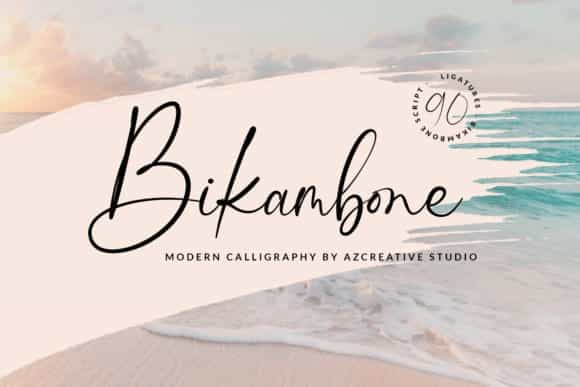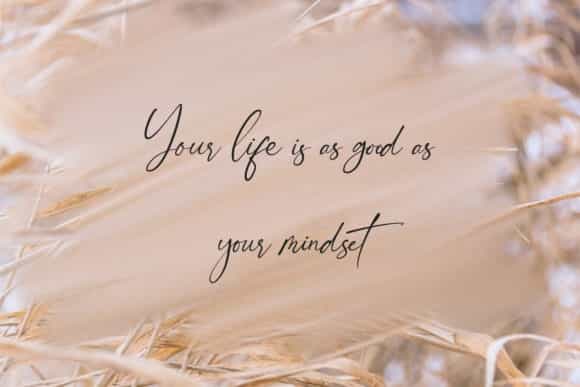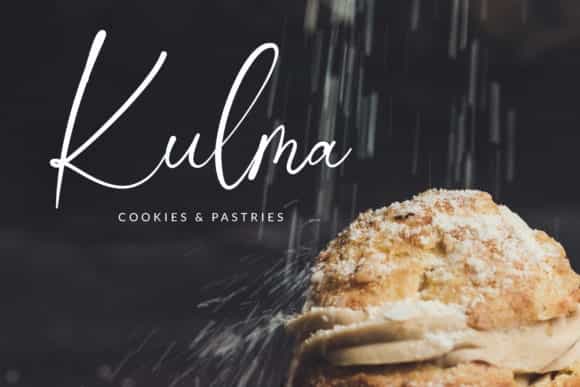
Bikambone is a stylish calligraphy font that has a varying baseline, smooth line, modern and with a depth of love. To those of you who are in need of the touch of love and modernity for your designs or branding.